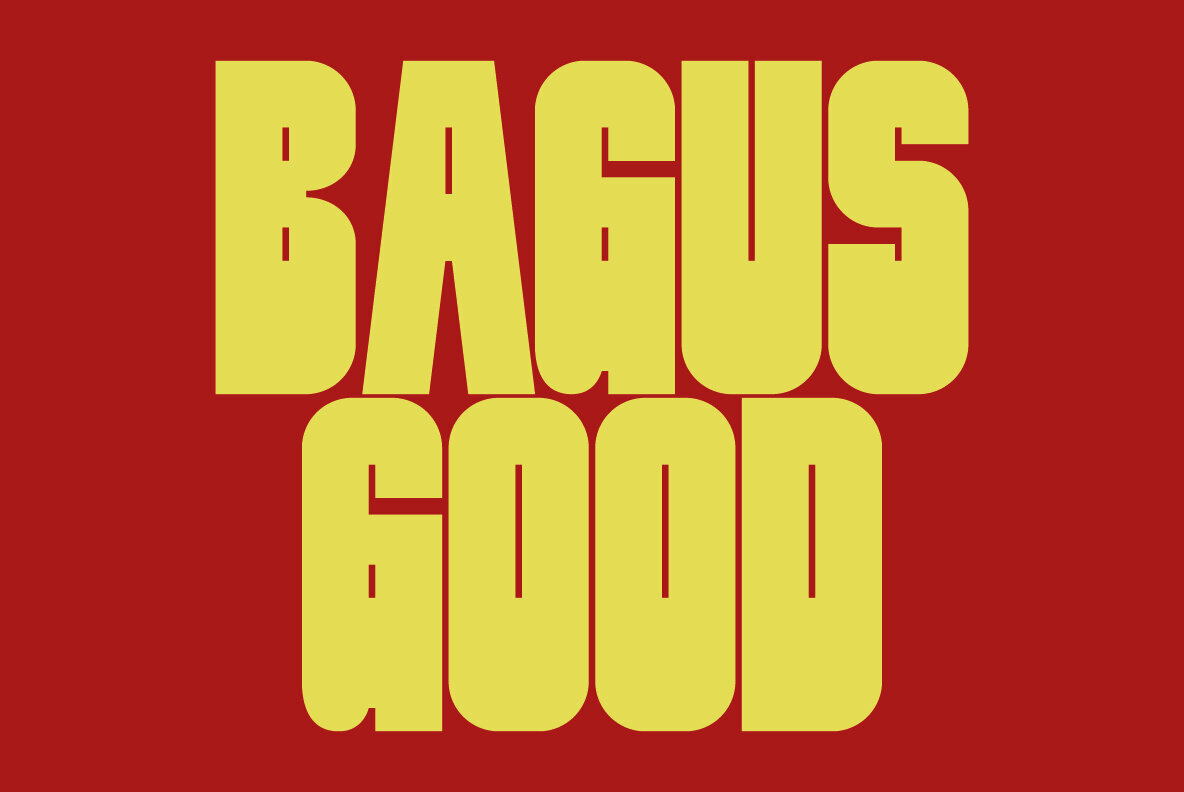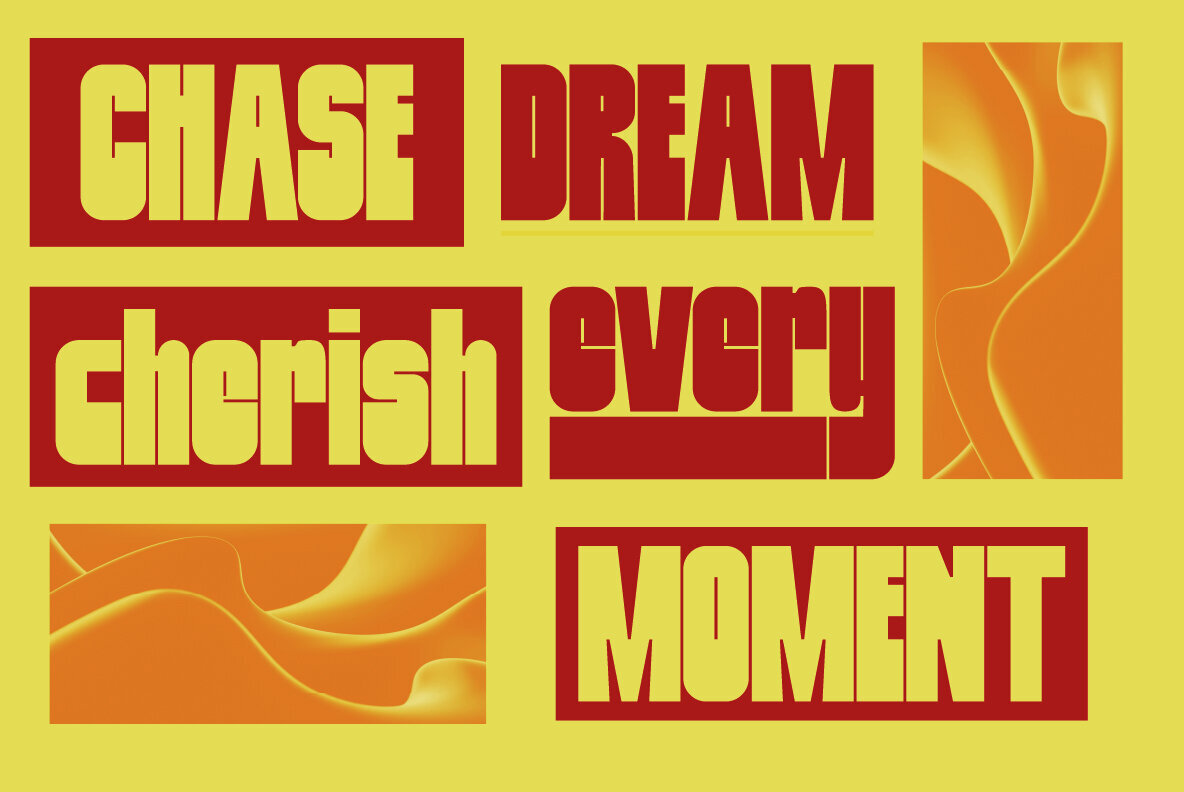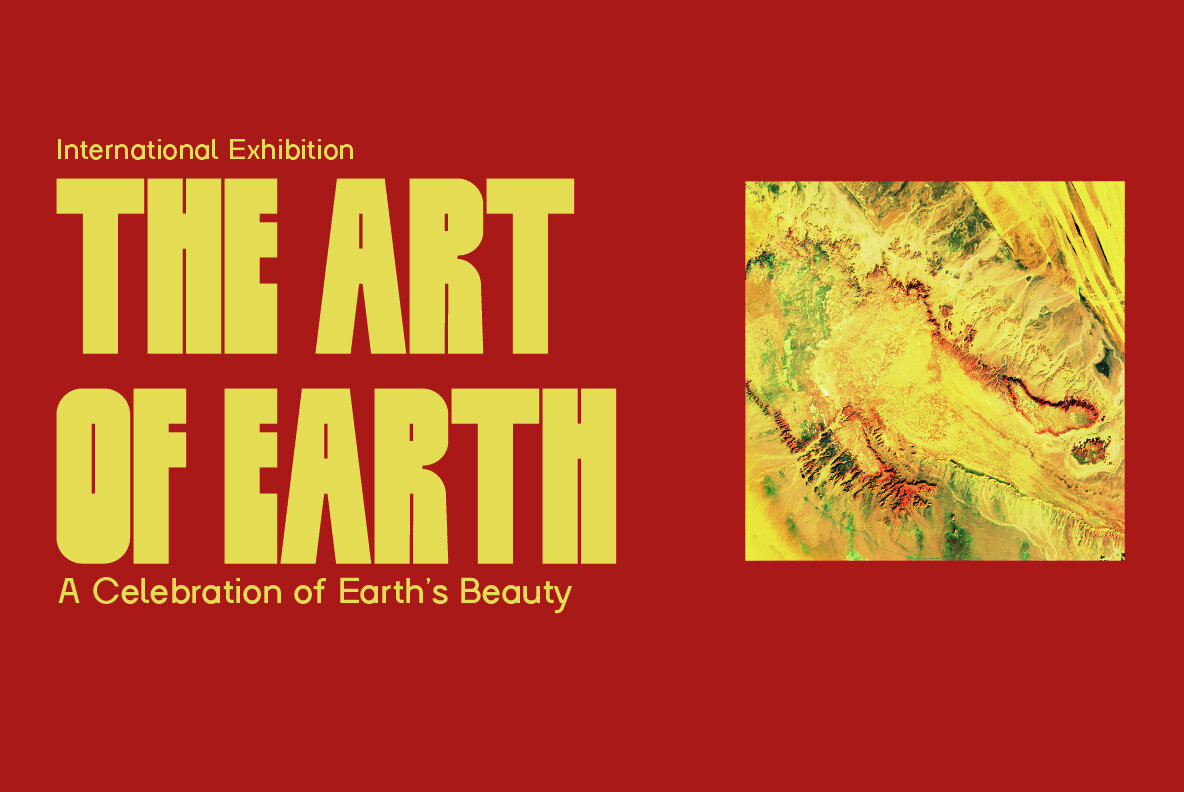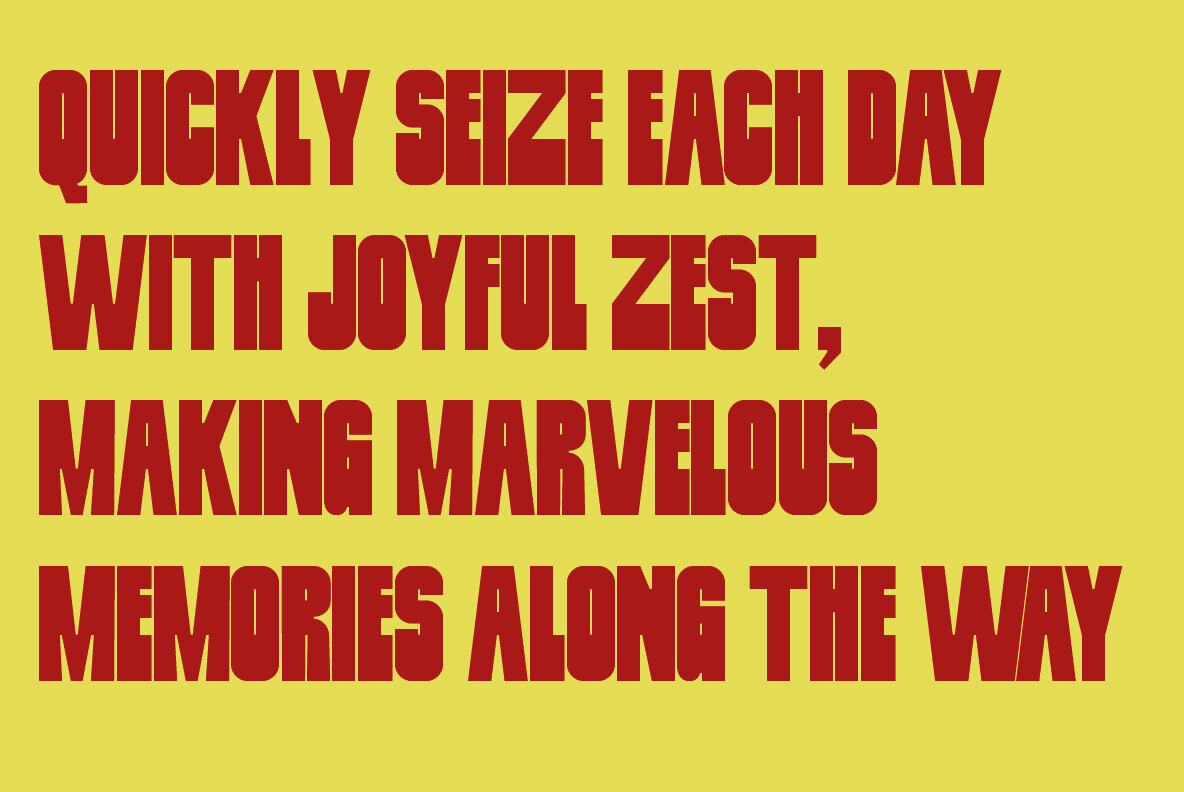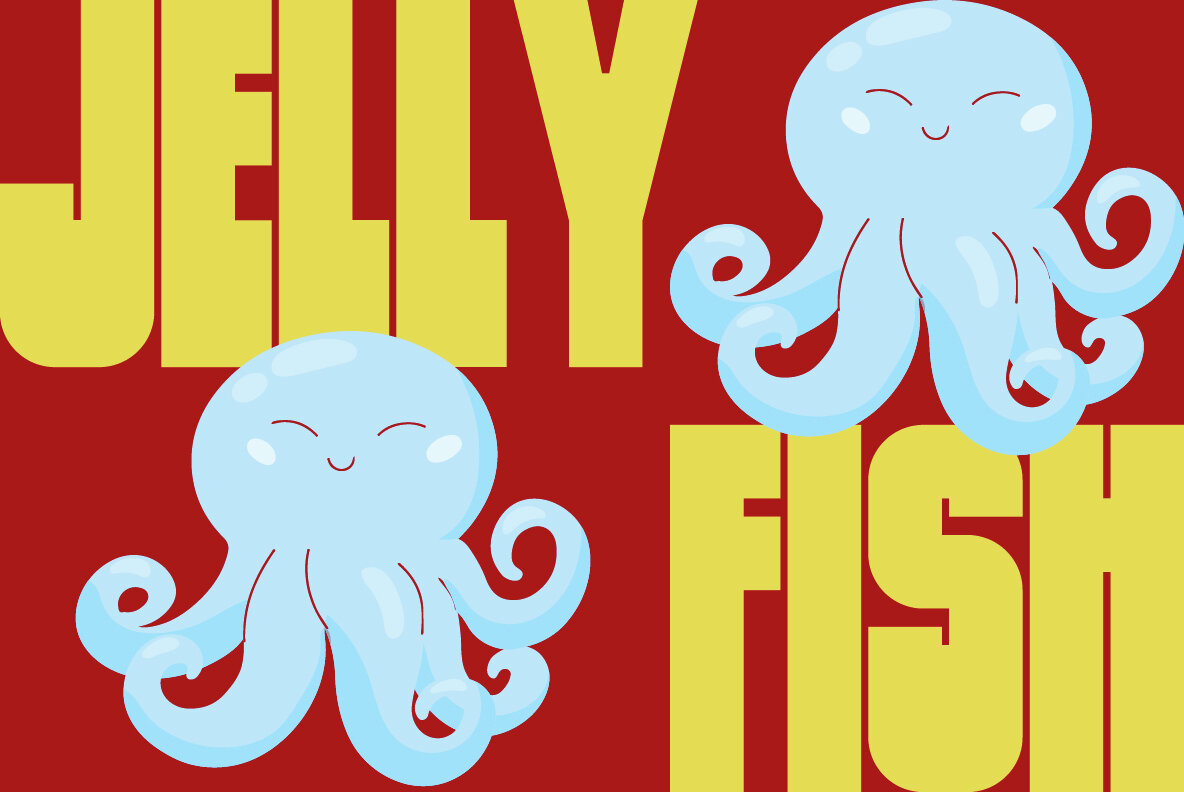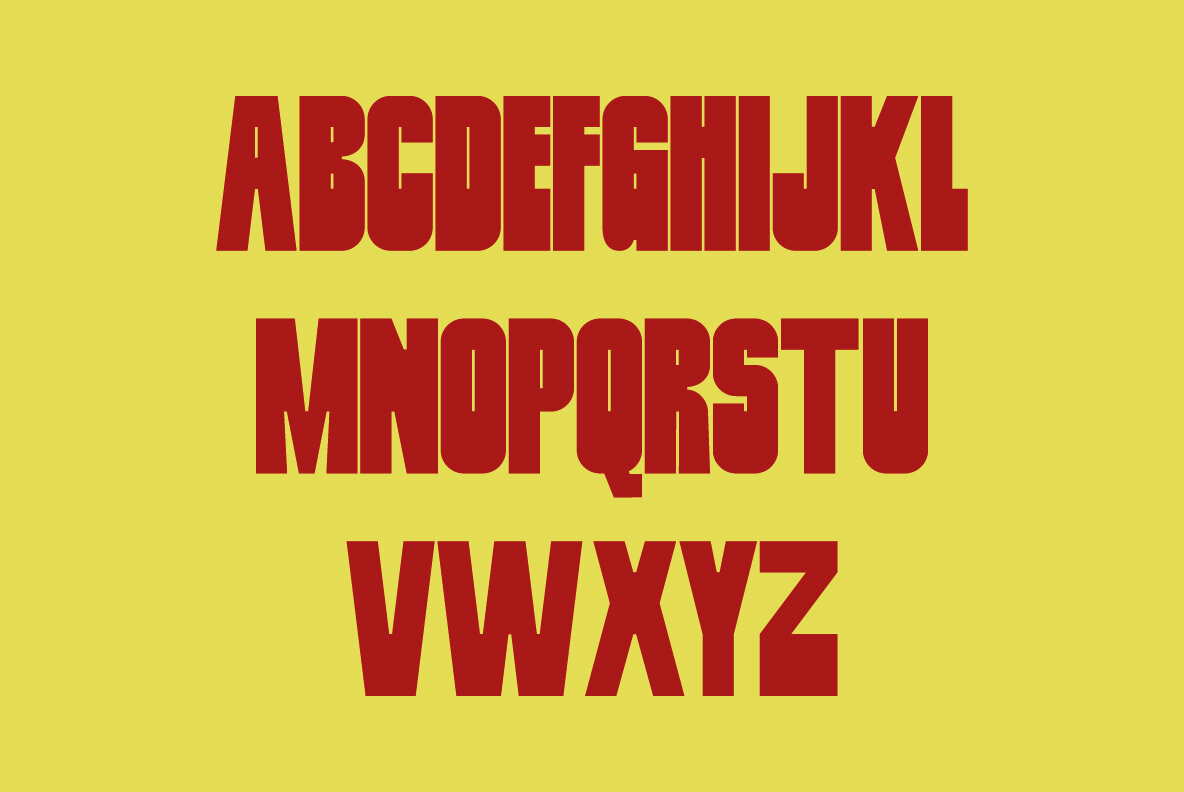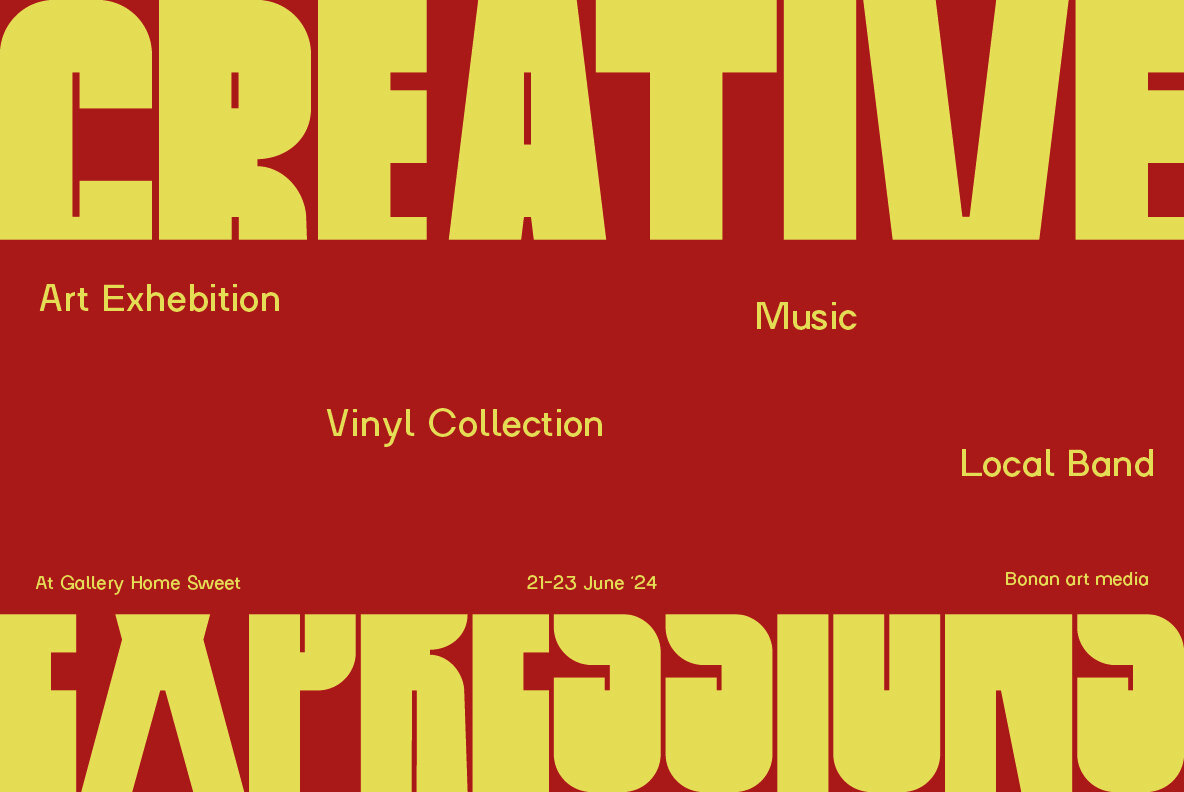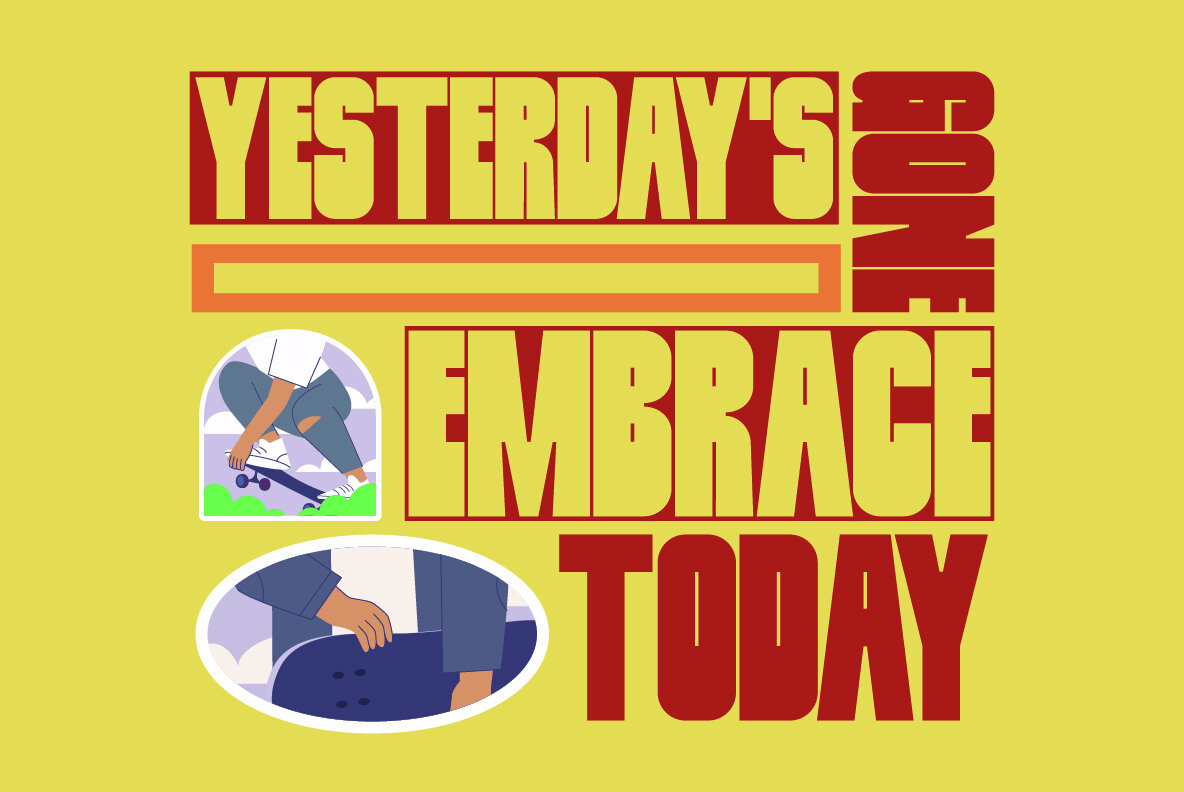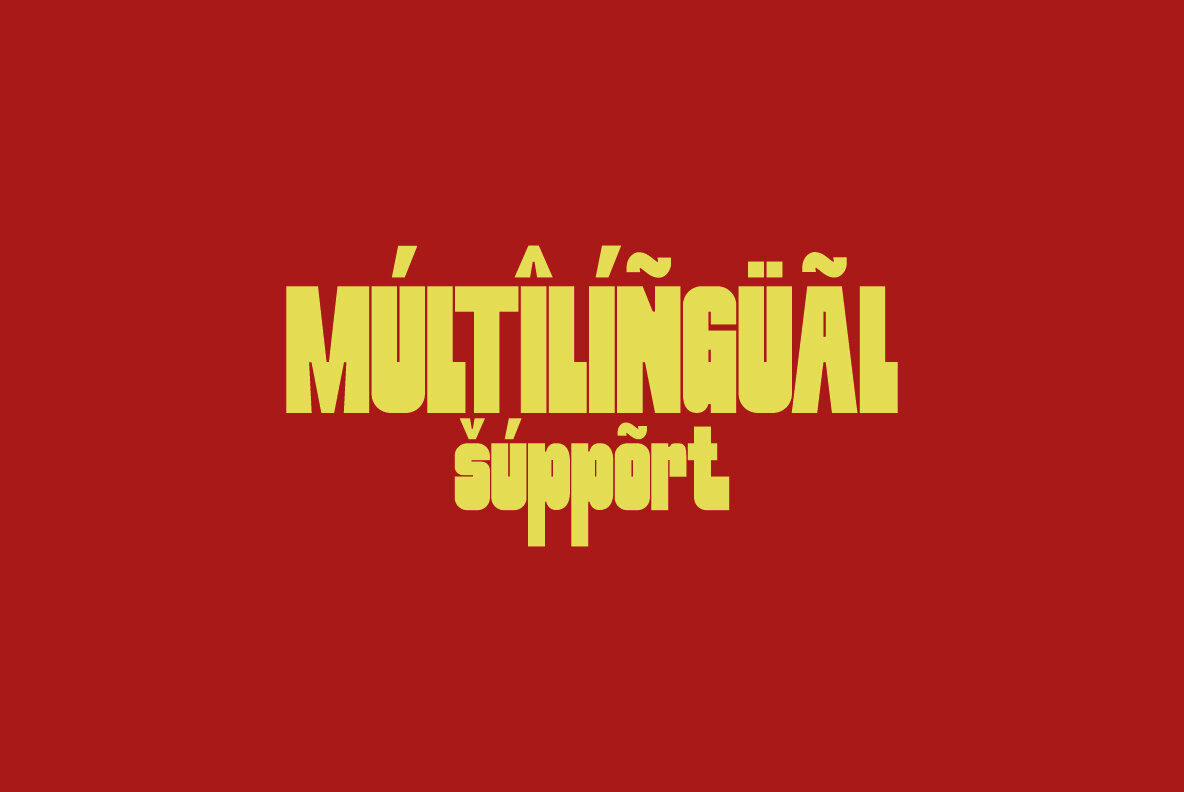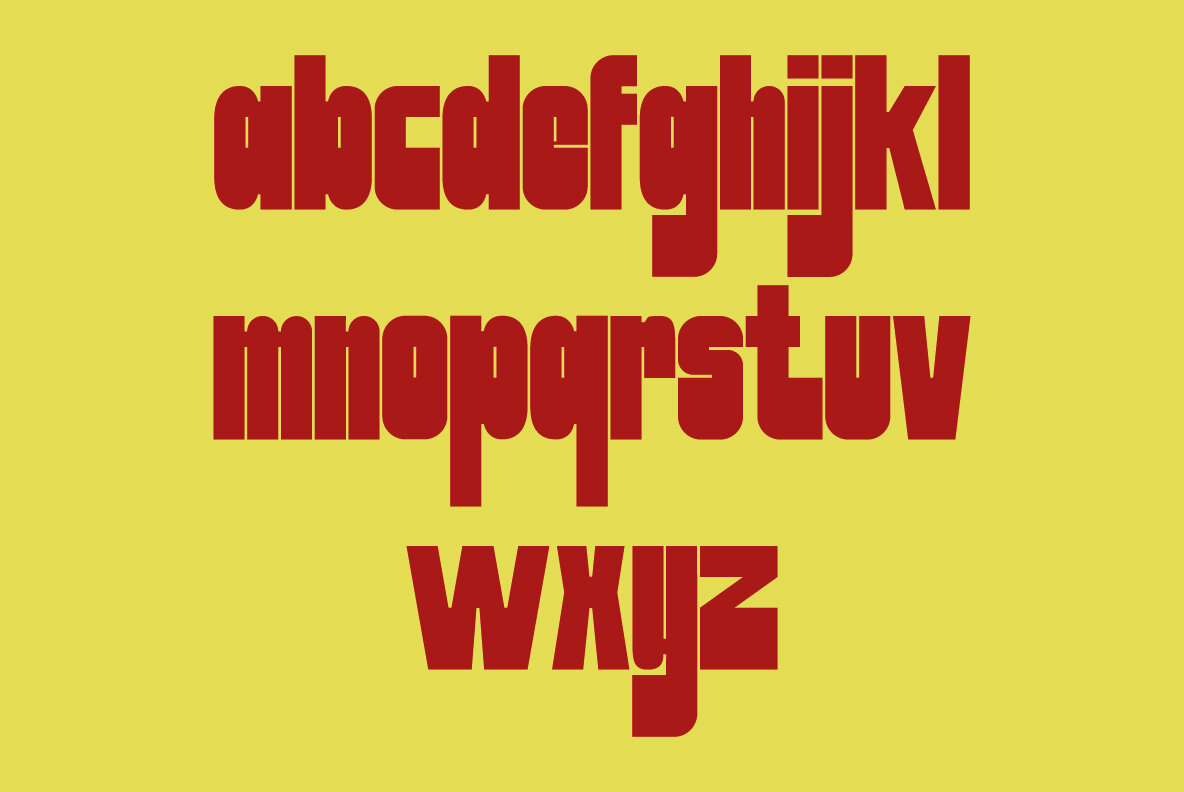
Bozilla Font
Bozilla Regular
Bozilla a commanding display sans serif font that embodies strength and impact. Inspired by the colossal presence of Godzilla, this font stands tall and bold, with a condensed design that commands attention. The unique characteristic of "Bozilla" lies in its stout and sturdy base, mirroring the distinct silhouette of its legendary inspiration. With its bold weight and condensed proportions, Bozilla makes a bold statement in any design application. This font is ideal for branding, publishing, film titles, advertising, and corporate materials where a strong and impactful typographic presence is desired. Bozilla exudes confidence and power with its clean, bold lines. Each letter is crafted to convey a sense of authority and dominance, ensuring maximum visibility and readability in all contexts. Whether used in print or digital media, Bozilla leaves a lasting impression and adds a touch of grandeur to your projects. Unleash the towering presence of Bozilla in your designs and experience the impact of this bold display font. Embrace its larger-than-life personality and harness its strength to elevate your branding and visual communication to new heights.